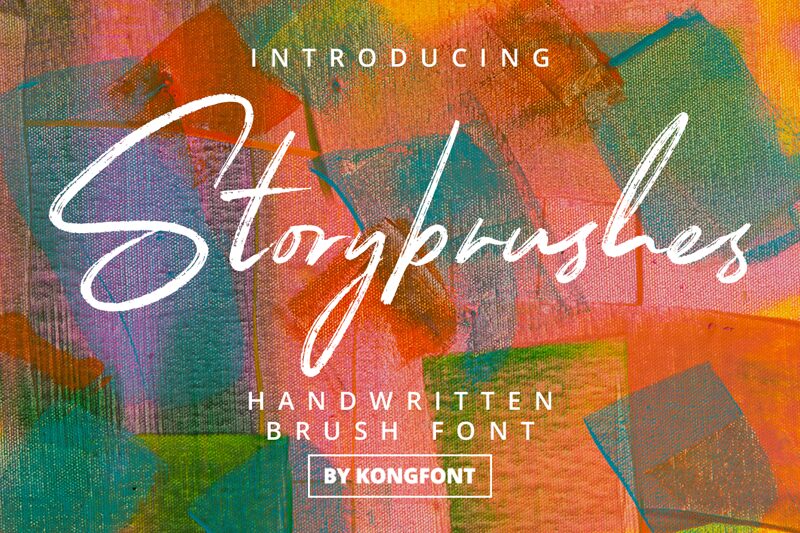
Storybrushes font by Kong Font is a captivating blend of handwritten charm and signature elegance. This light font exudes an airy grace, making it perfect for designs that require a personal touch. Its distinctive brush-like strokes add a dynamic flow, giving your text an authentic, bespoke feel.
Ideal for branding projects, invitations, or any creative work needing a sophisticated edge, Storybrushes transforms ordinary text into extraordinary art. Whether you're crafting digital content or print media, this free font ensures your message stands out with style and finesse.